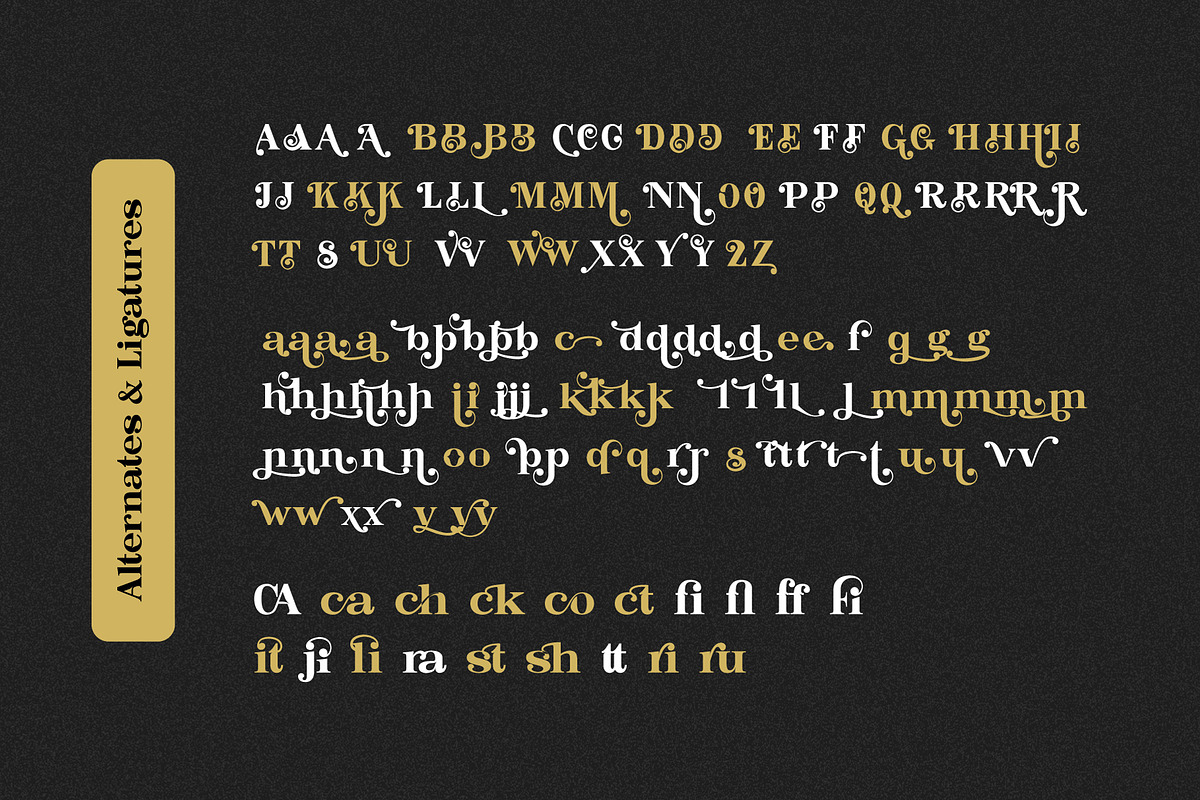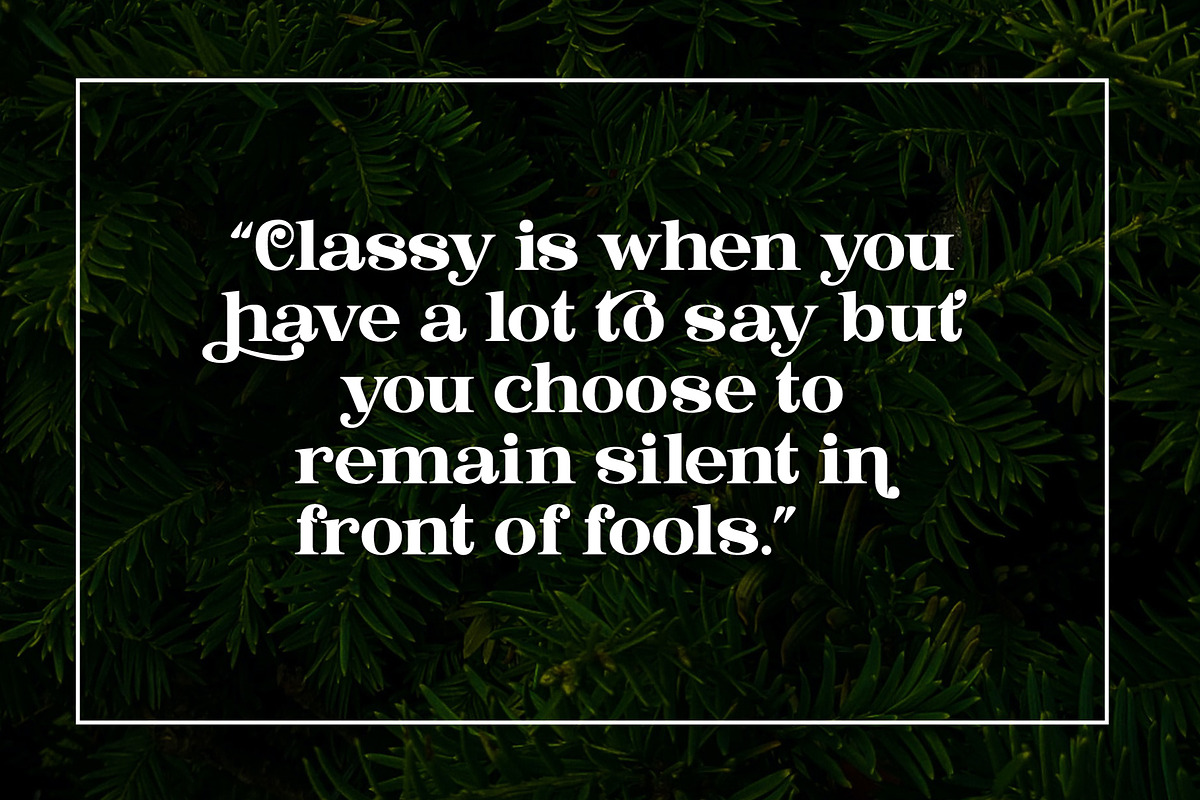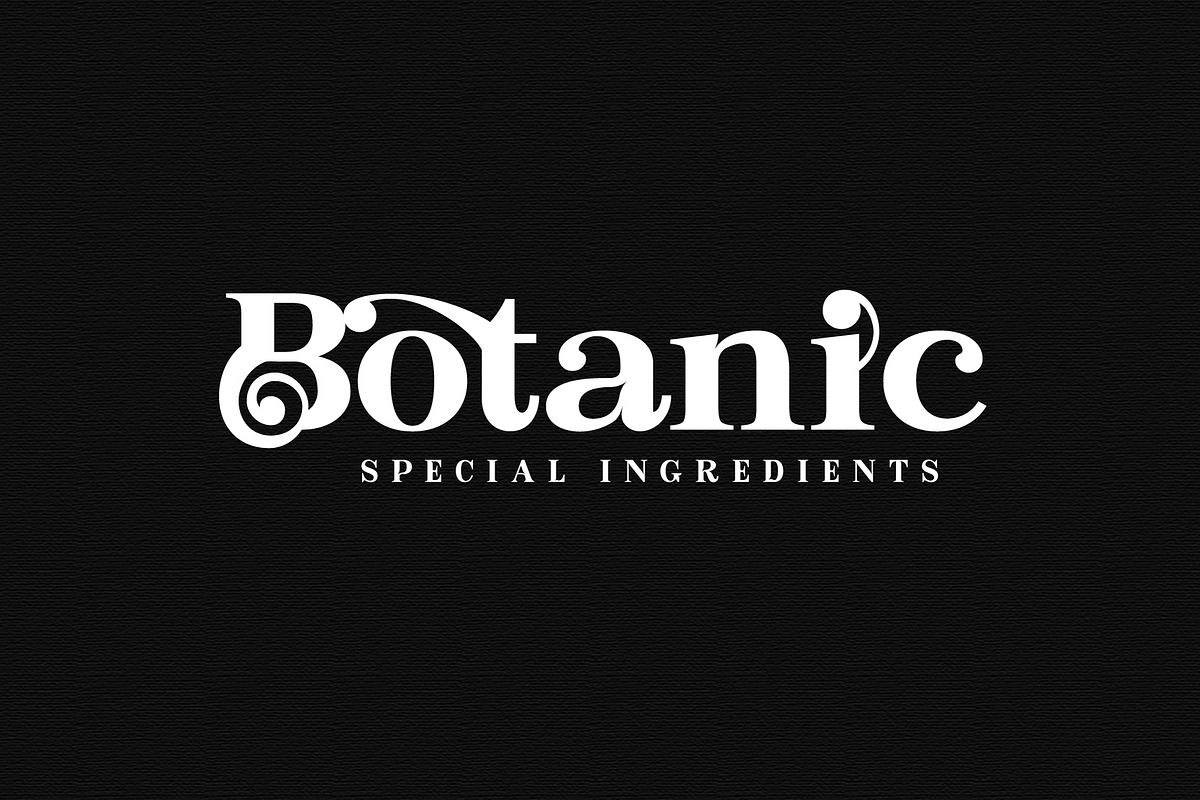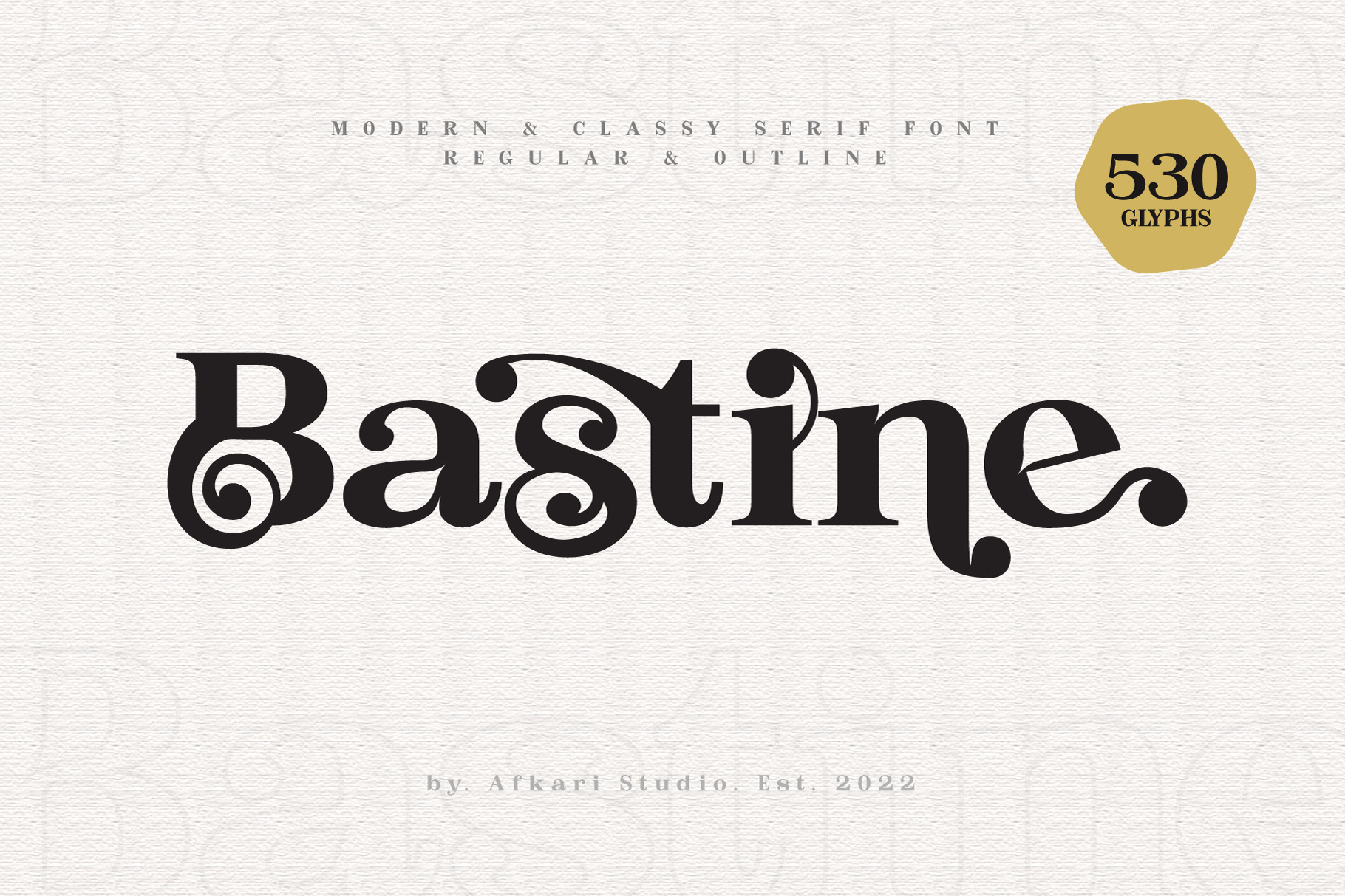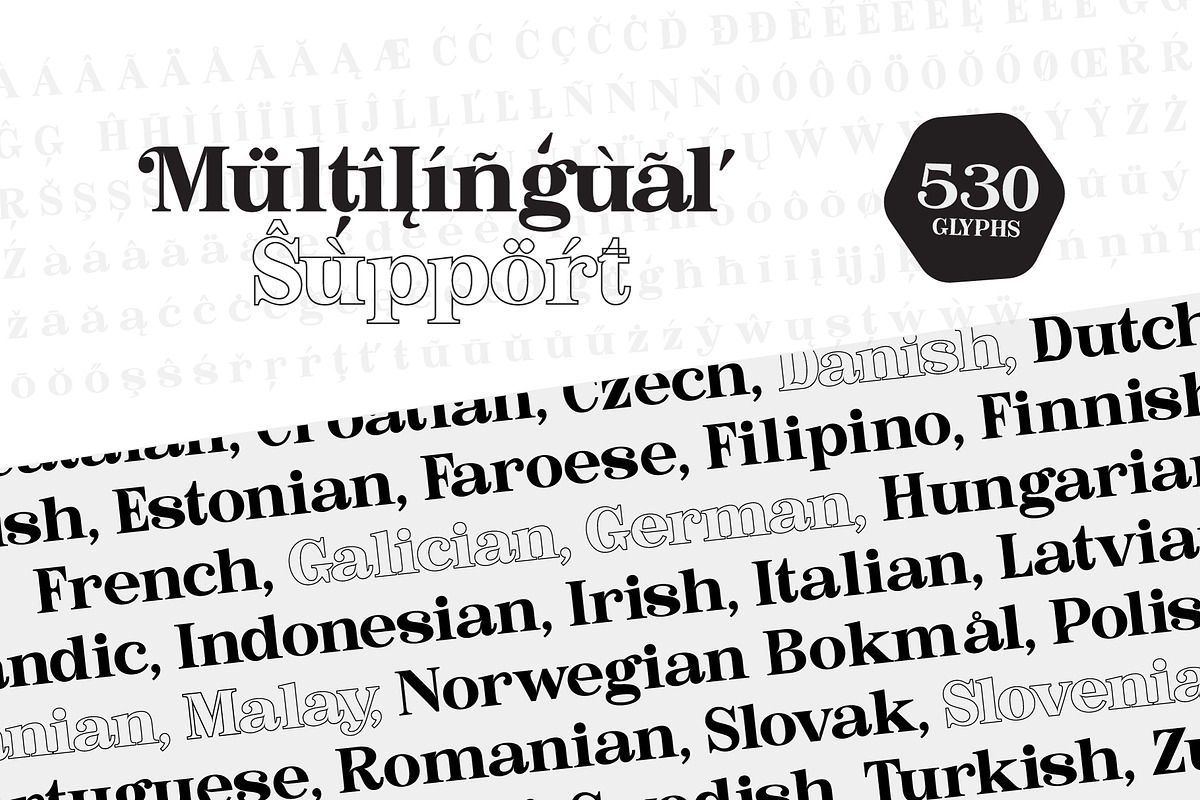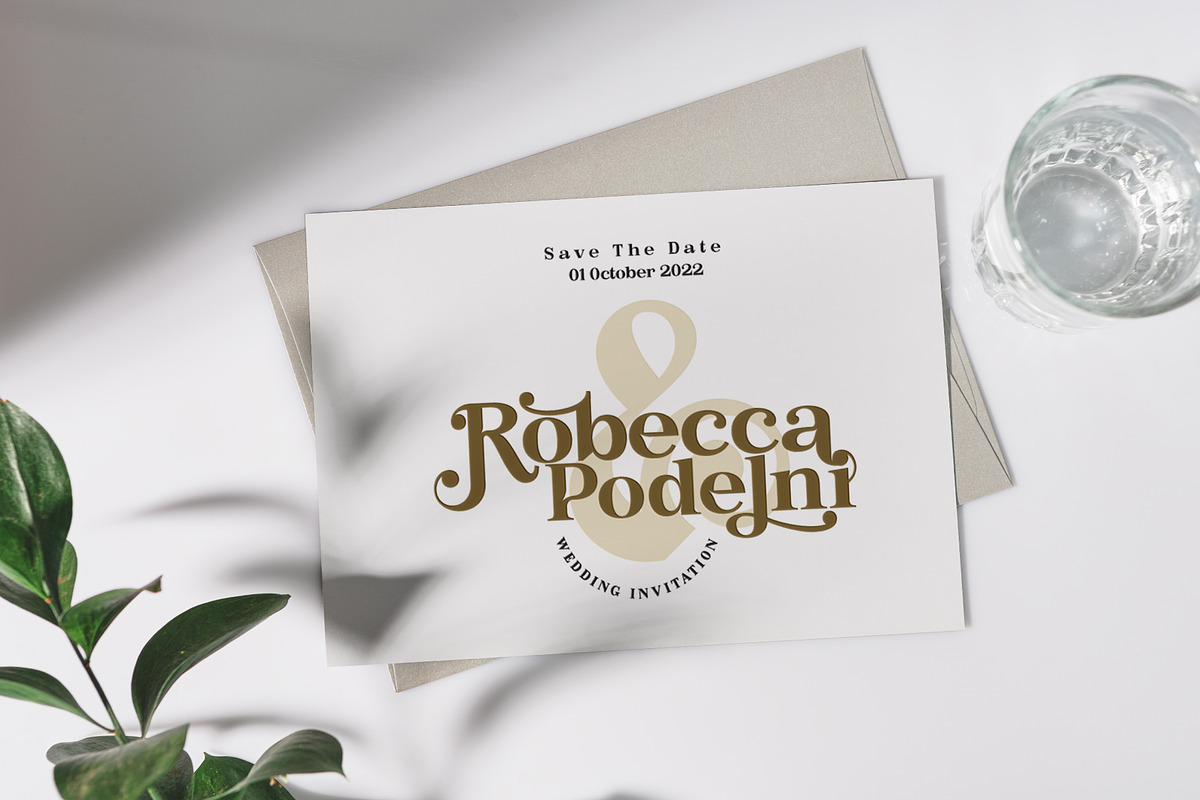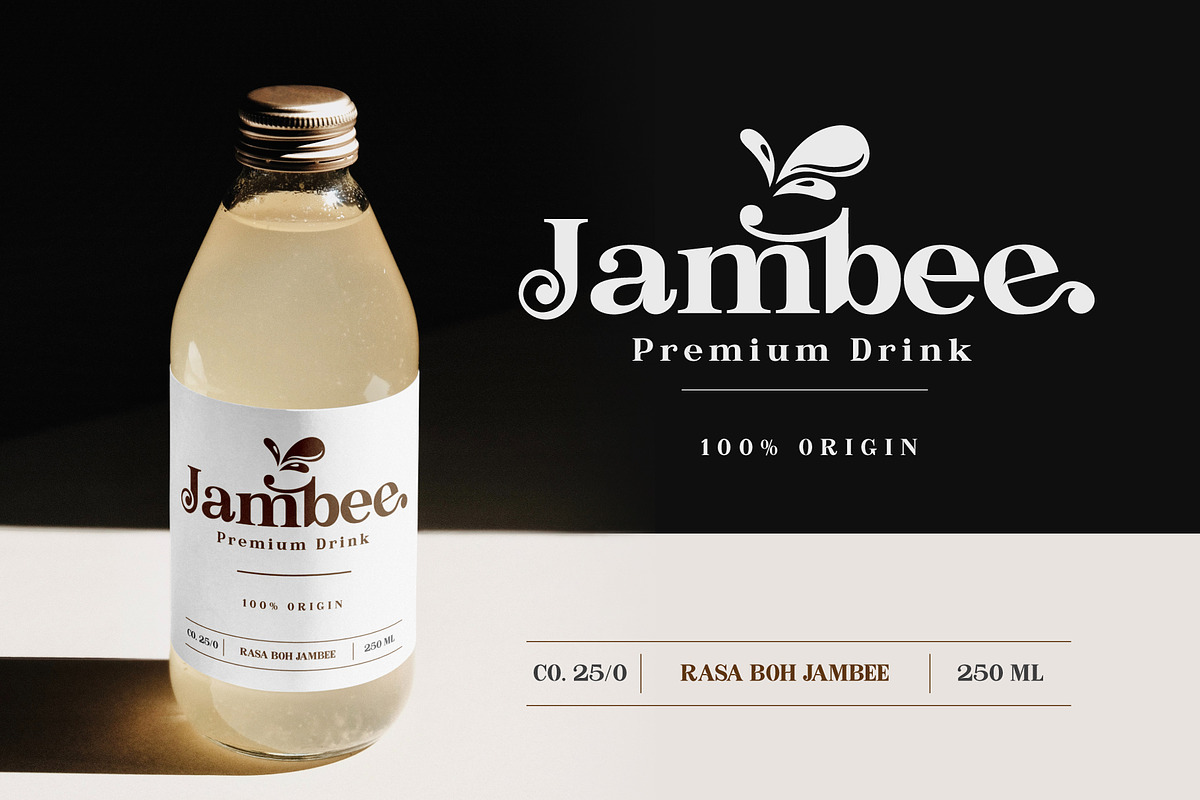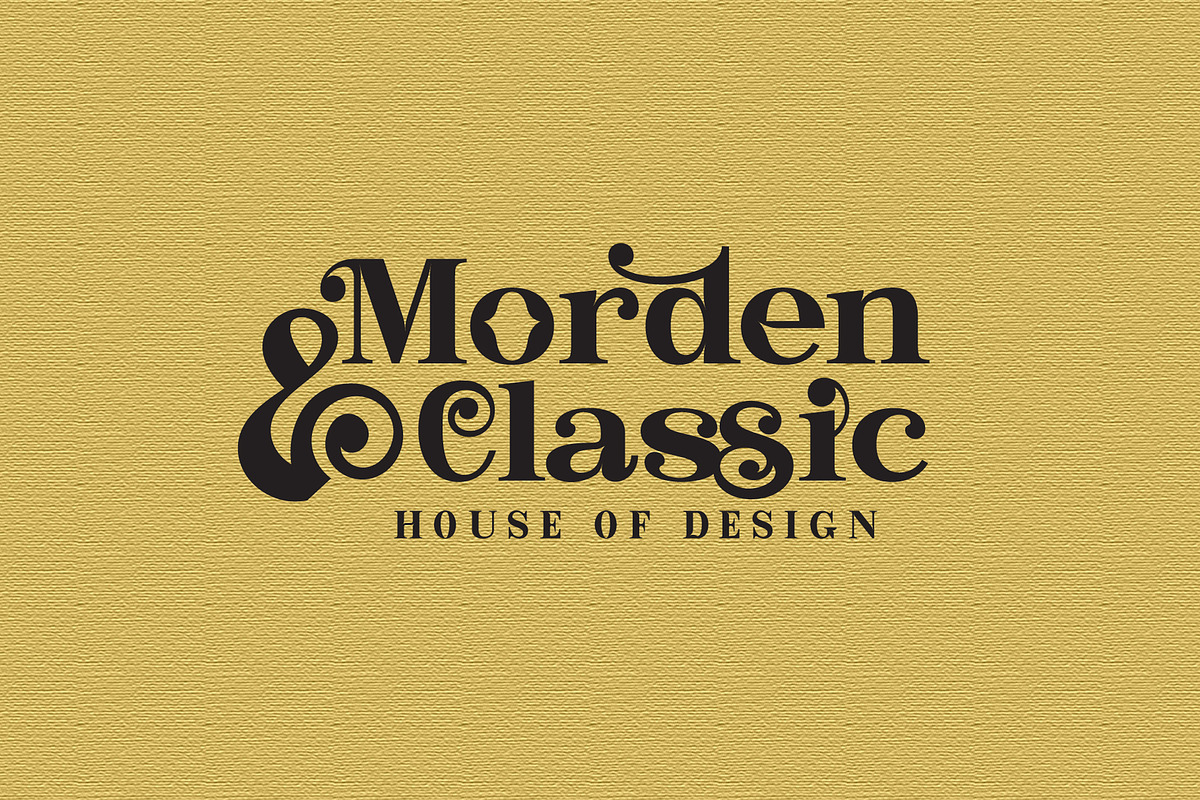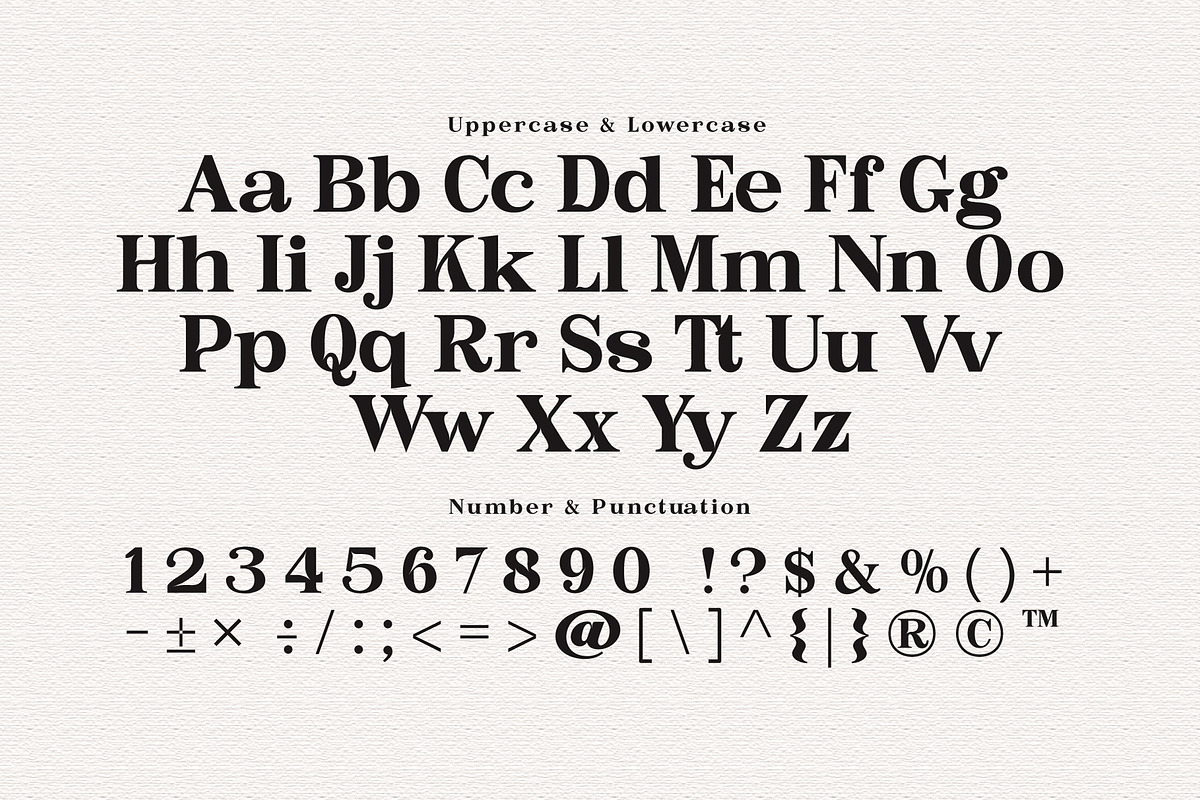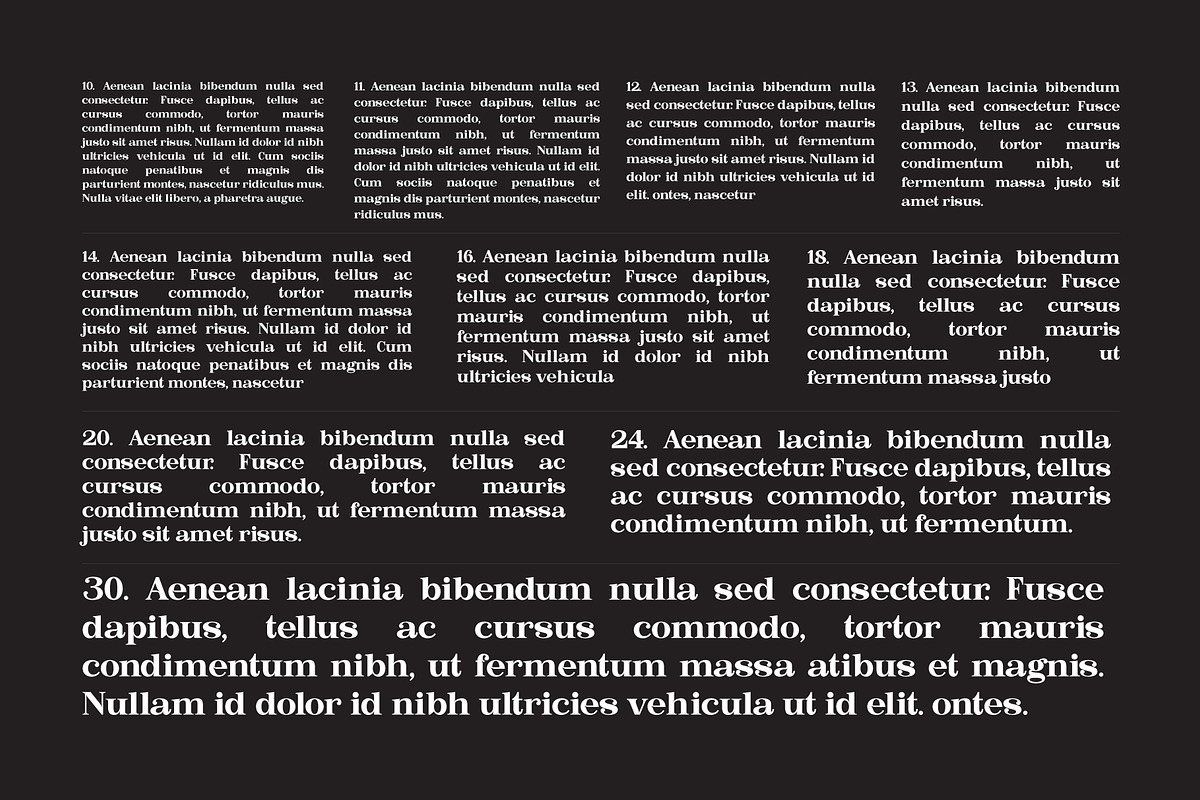
Bastine - Modern Classy Serif Font
Bastine is a modern and classy serif font with tons of special alternative glyphs and ligatures and create with special style, regular and outline. Bastine modern elegant, classy serif font perfect for branding projects, Clothing Branding, Logo design, product packaging, wedding invitations, magazine headers, or simply as a stylish text overlay to any creative design you create.
Bastine Modern Classy Serif Font Features;
- Uppercase, Lowercase, Number, and Punctuation
- Regular & Outline Style
- Special alternates and ligatures
- Mültîlíñgúãl Sùppört for; ä ö ü Ä Ö Ü ß ¿ ¡